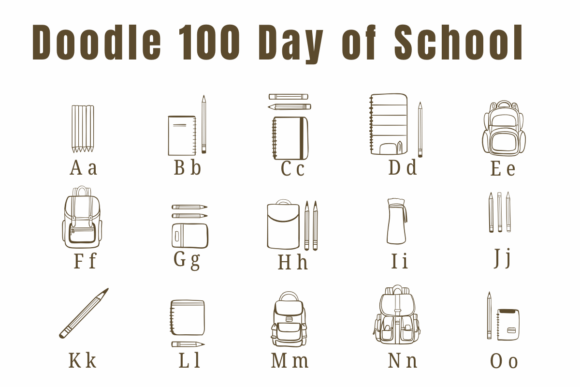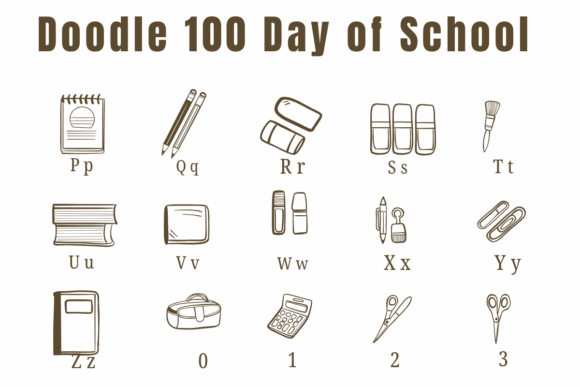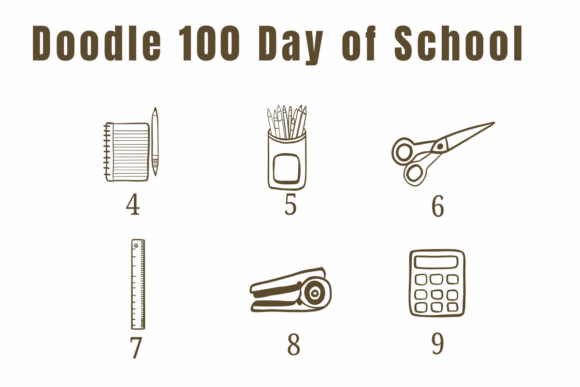
Introduction to Doodle 100 Day of School Font
100 Days of School Doodle Dingbats Font is a charming collection of school-themed doodles in a fun and versatile dingbat style.
Featuring backpacks, pencils, scissors, notebooks, and more, this font is perfect for creating educational materials, teacher resources, school event decorations, and crafting projects Add a playful, academic touch to your designs with these adorable illustrations.